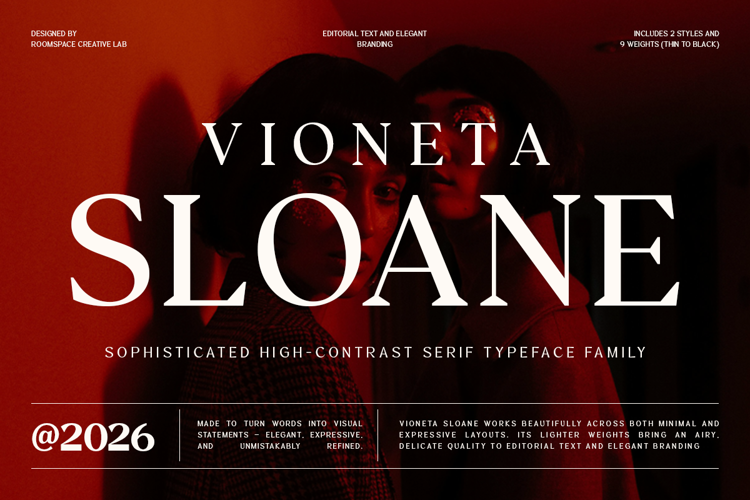
Vioneta Sloane Font
Vioneta Sloane is a sophisticated high-contrast serif font family designed for editorial typography, fashion branding, luxury identities, and expressive display design. Its refined proportions, sharp serif details, dramatic thick-and-thin contrast, and elegant letterforms create a distinctive visual presence for both classic and contemporary projects.
The font family includes 2 styles and 9 weights, ranging from Thin, Extra Light, Light, Regular, Medium, Semi Bold, Bold, Extra Bold, to Black. This extensive weight range gives designers greater flexibility to build clear typographic hierarchy, from delicate editorial text and elegant captions to bold headlines, titles, logos, and statement compositions.
Vioneta Sloane is suitable for fashion magazines, editorial layouts, luxury branding, beauty campaigns, fragrance packaging, cosmetic branding, restaurant identities, boutique logos, posters, invitations, book covers, social media graphics, website headlines, advertising campaigns, and other visual identity projects.